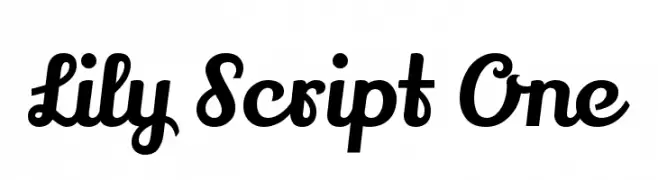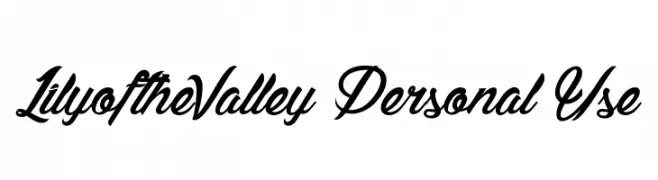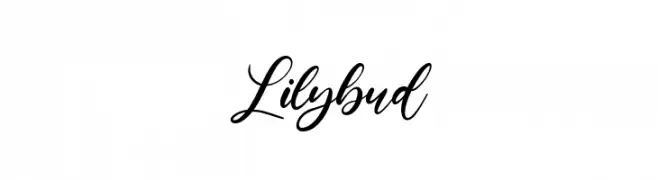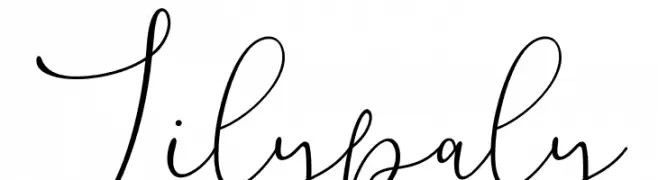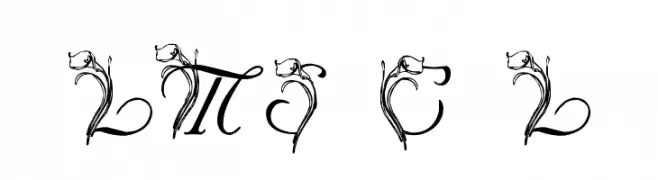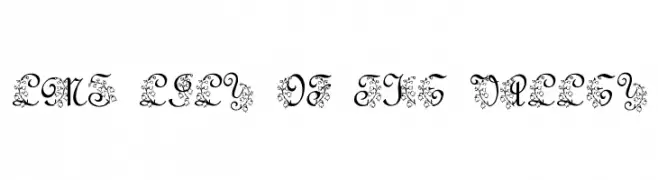
Lily Script One Font
A bold, playful script font with a handwritten feel and elegant swashes.
Lily Flower Font
A bold, decorative font with floral motifs in uppercase letters.
LMS Lily Of The Valley Font
An ornate, floral-decorated font with intricate details and elegant curves.
Lily of the Valley_Personal_Use Font
A flowing, cursive script font with elegant, interconnected letters.
LilyWhite Font
A bold, expressive handwritten font with fluid curves and thick strokes.
Lily Clover Font
A playful, flower-adorned decorative font with bold, rounded characters.
Rain Lily Medium Font
Playful, rounded sans-serif with a handwritten style.
Bridget Lily Font
Handwritten cursive script with thin, flowing strokes.
LMS Calla Lily Font
A decorative font with floral calla lily motifs integrated into each character.
Iron Blade Font
A bold, brushstroke-style font with dynamic, expressive lines.
Lily of the Valley_PersonalUseOnly Font
An elegant, flowing script font with cursive, connected letterforms.
Lilybud Font
A sophisticated cursive font with elegant, flowing lines.
Key Virtue Font
A bold, brushstroke font with a dynamic and textured appearance.
Rain Lily Font
A bold, cursive font with elegant loops and a handwritten style.
LilypadAvenue Font
A graceful script font with fluid, cursive strokes and elegant flourishes.
LMS Spring Lily Font
A decorative serif font with floral embellishments.
Lilypaly Font
An elegant, flowing script font with decorative flourishes and high contrast.
Lilypad Avenue Font
A graceful script font with flowing, connected strokes and a handwritten feel.